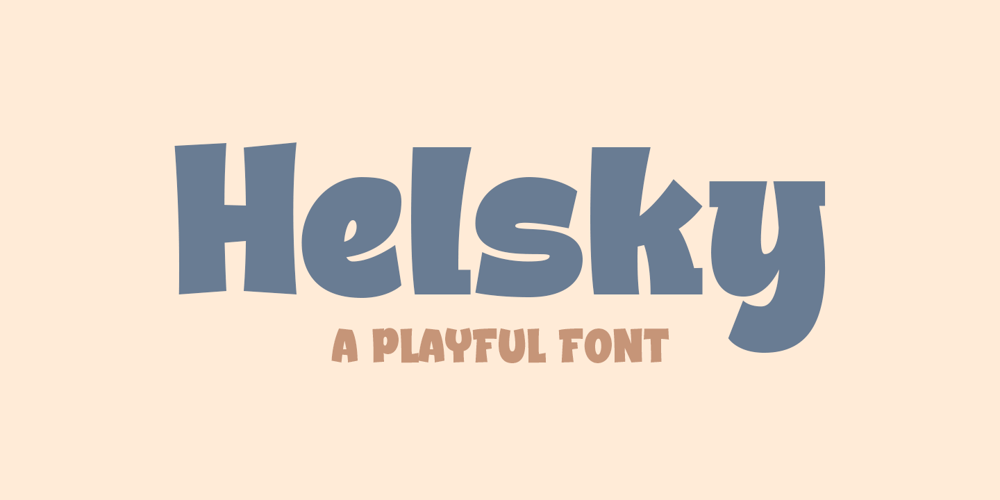
Helsky
Helsky font
Helsky Font Family was designed by Bangkit Tri Setiadi and published by Blankids. Helsky contains 1 styles and family package options. Introducing of our new product the name is Helsky a Playful Font, Helsky inspired by Playful style with a fun theme very good for kids theme design.**FEATURES :** Uppercase Lowercase Number Punctuation Multilingual PUA Encode Opentype